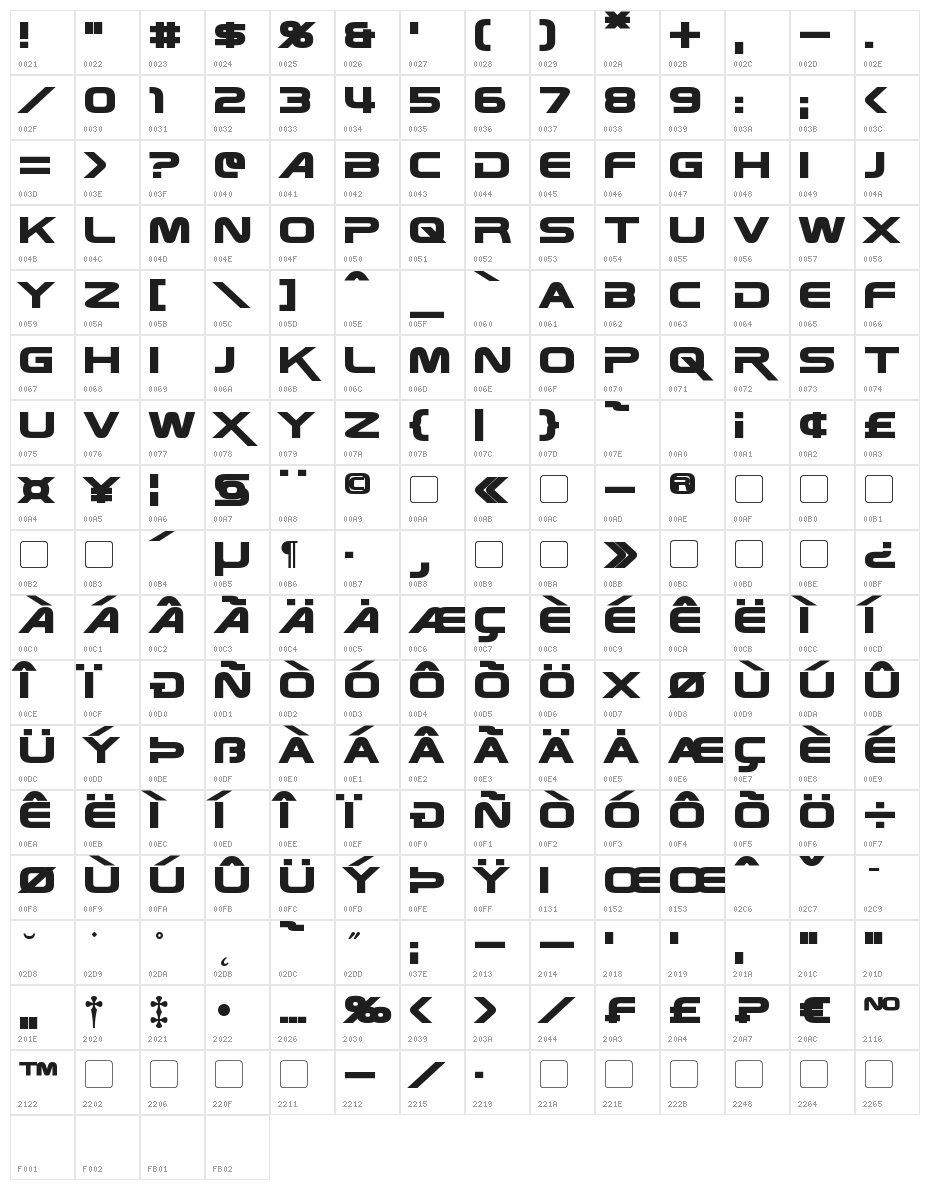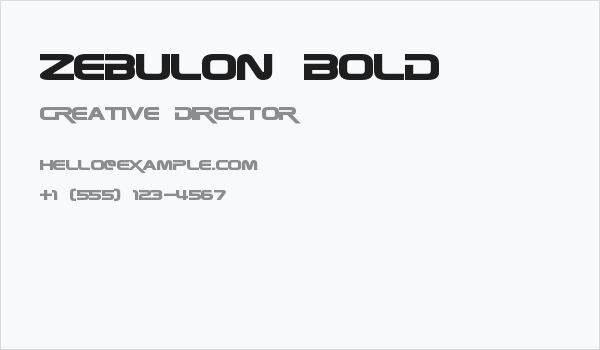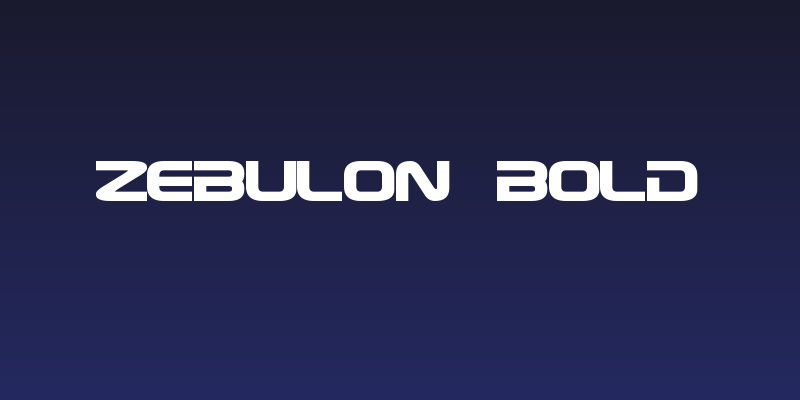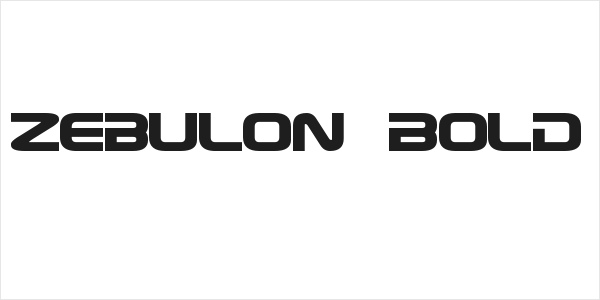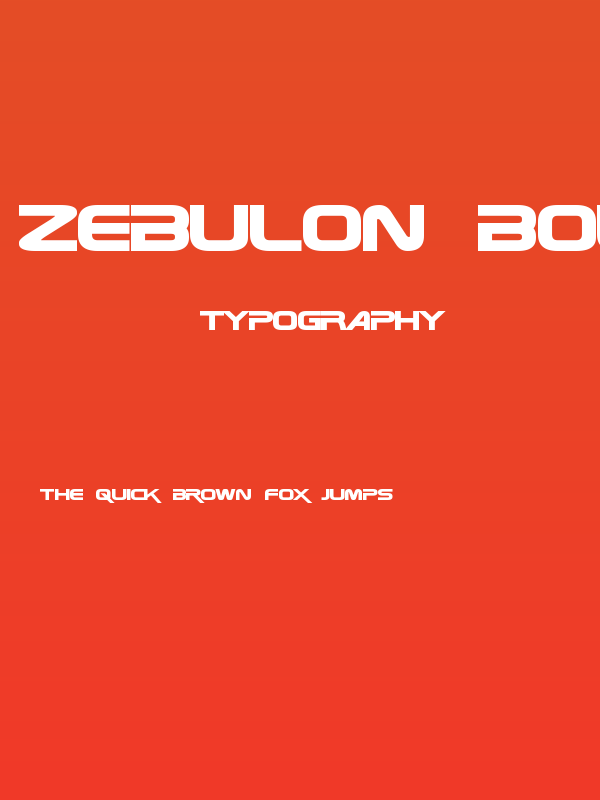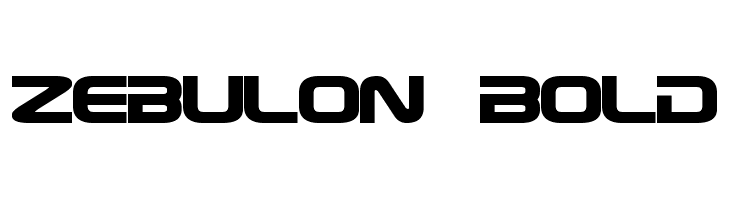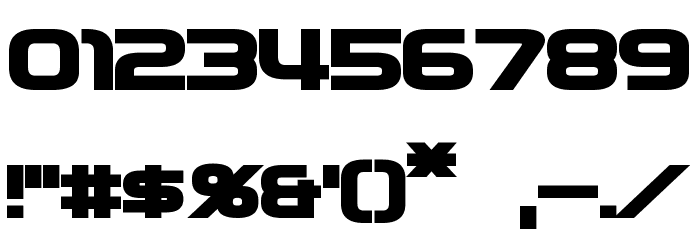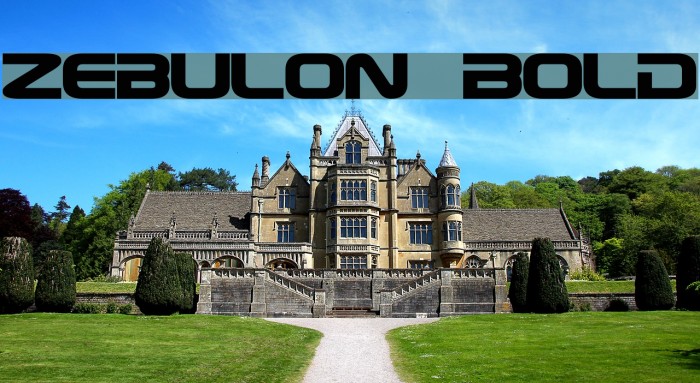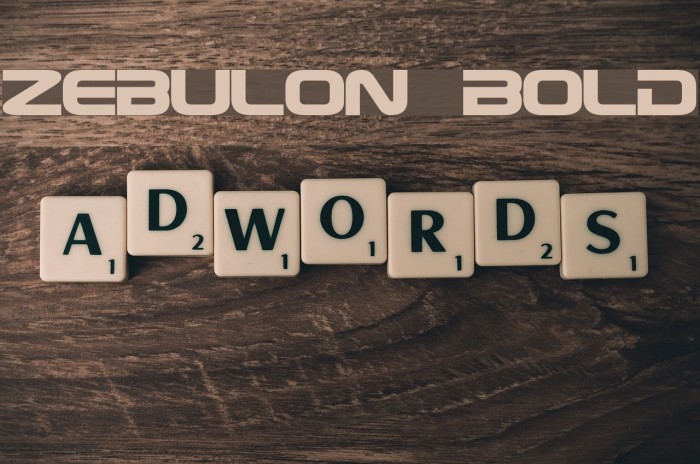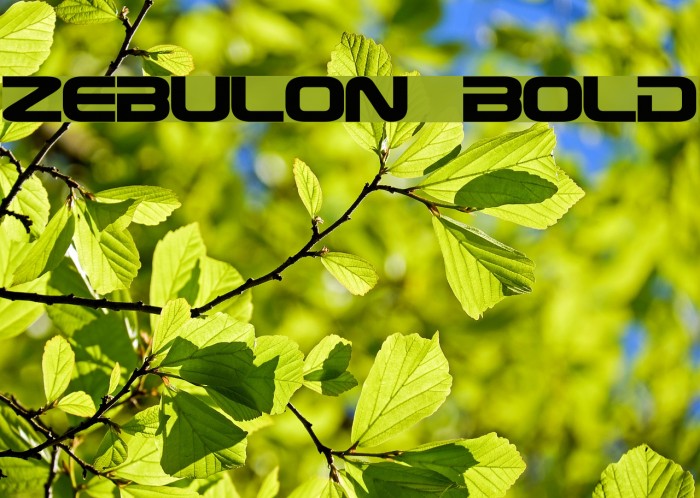
Zebulon Bold Font
Zebulon Bold Description
This font features a bold, futuristic design with a strong geometric structure. The characters are wide and have a distinct, angular form, giving them a modern and tech-inspired appearance. The uppercase letters are particularly striking, with sharp edges and a consistent height that creates a uniform look. The numerals and special characters maintain the same boldness and geometric style, ensuring cohesion across all elements. This font is ideal for projects that require a contemporary and impactful visual presence.
| Proposed Projects | Ideal for technology branding, sci-fi themed designs, video game titles, and modern advertising campaigns. |